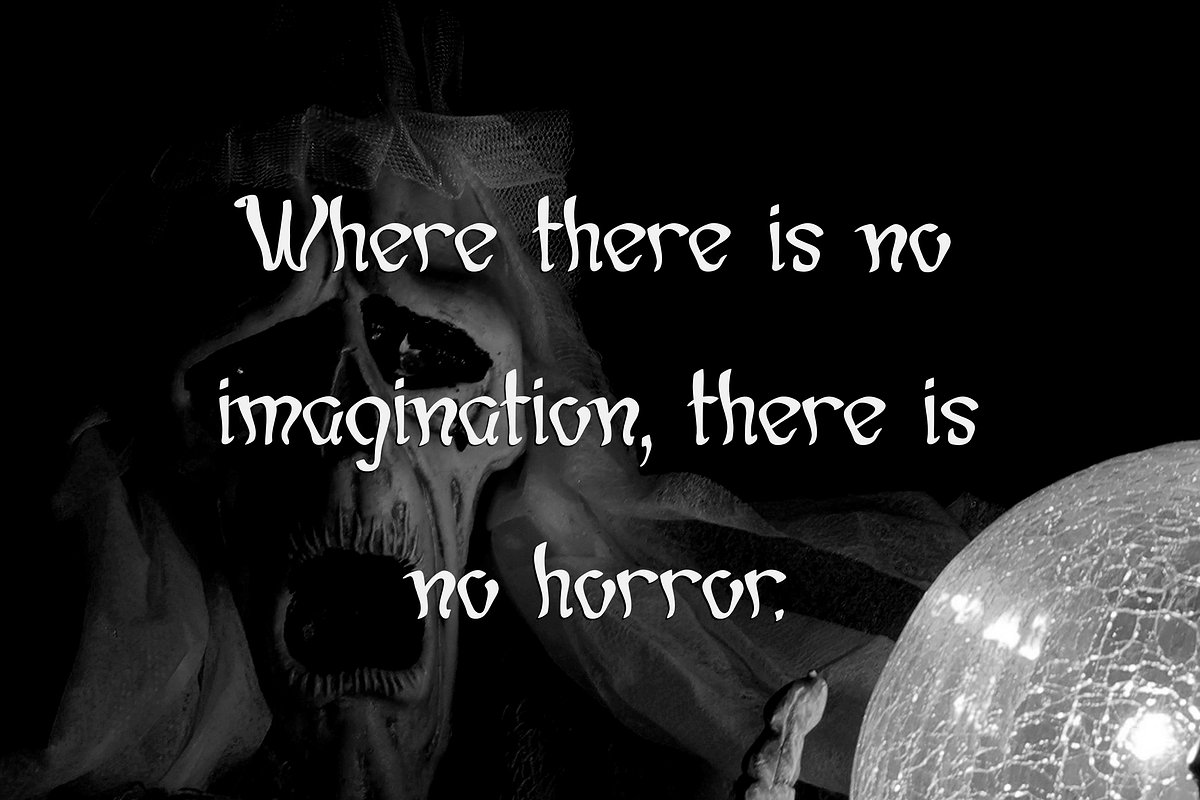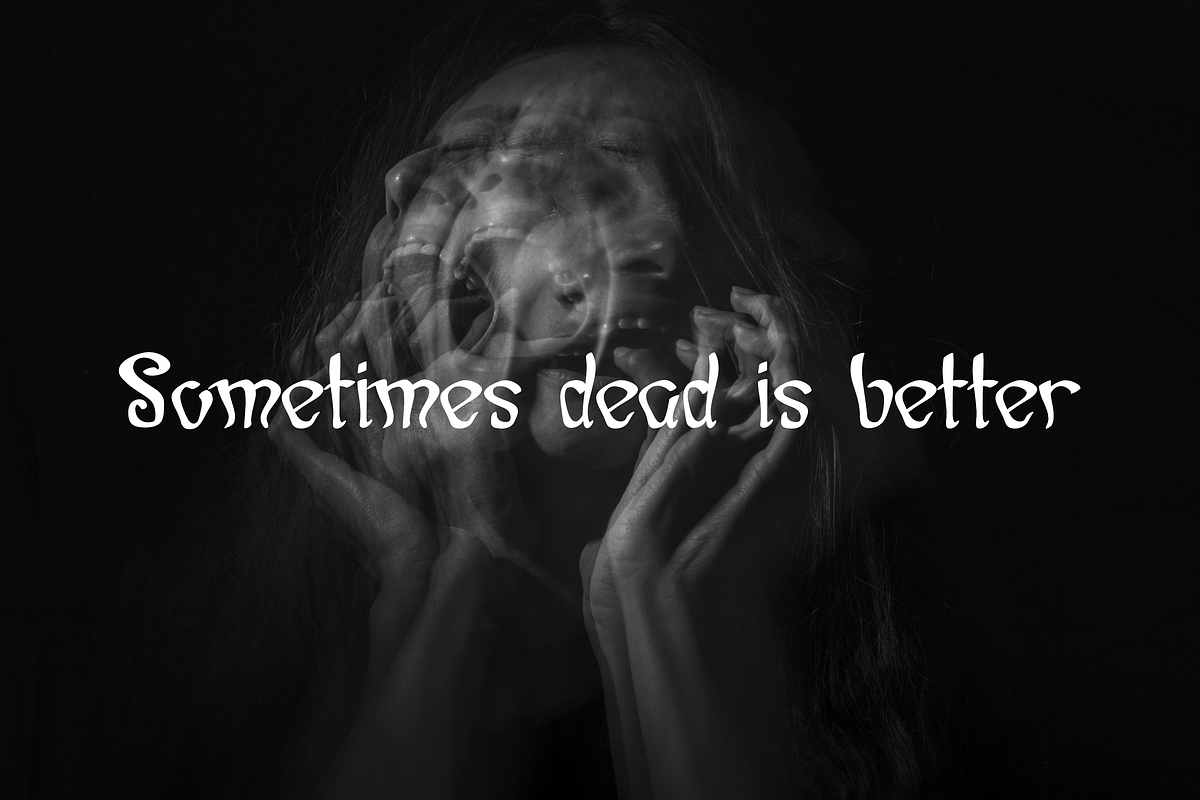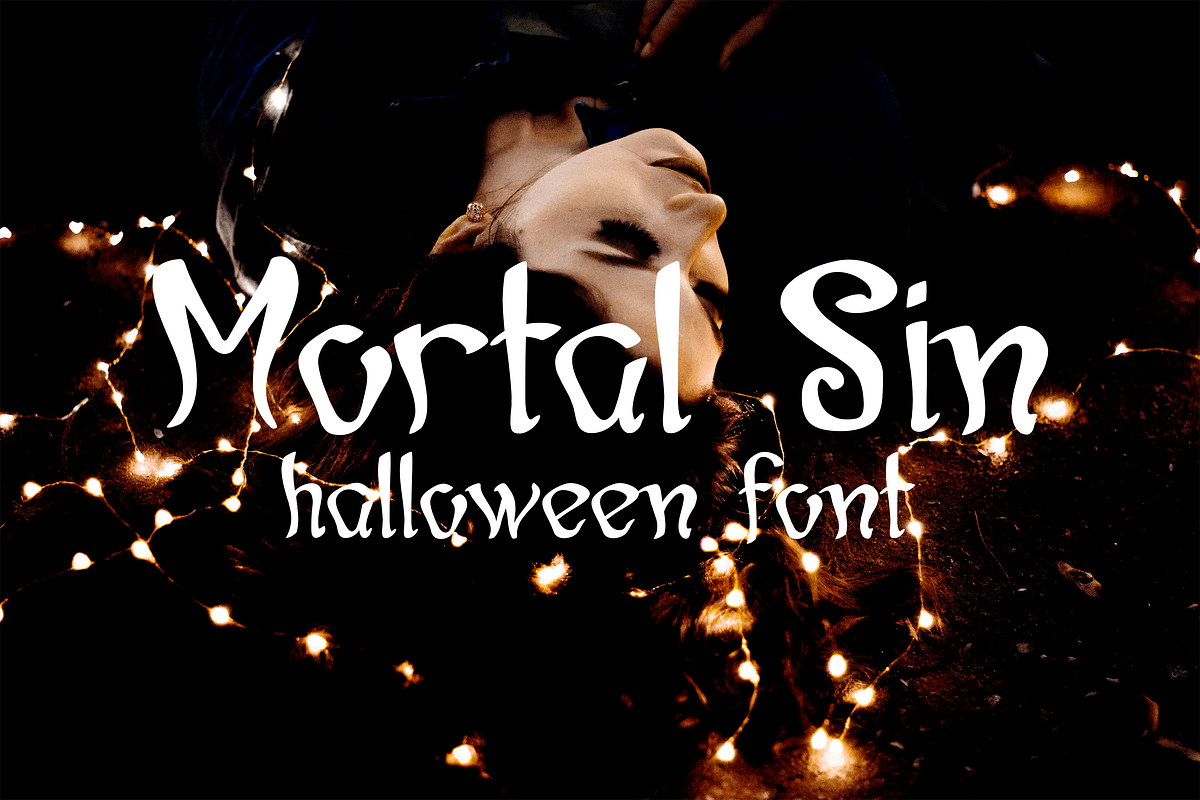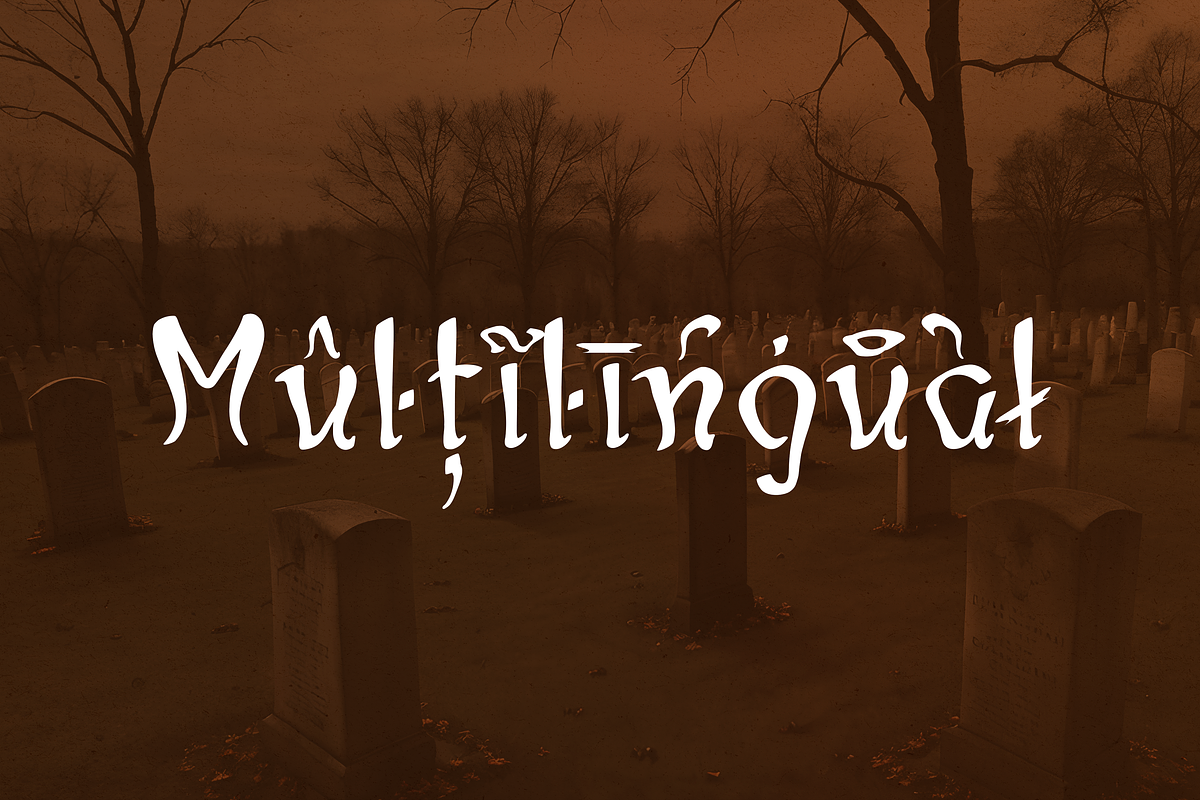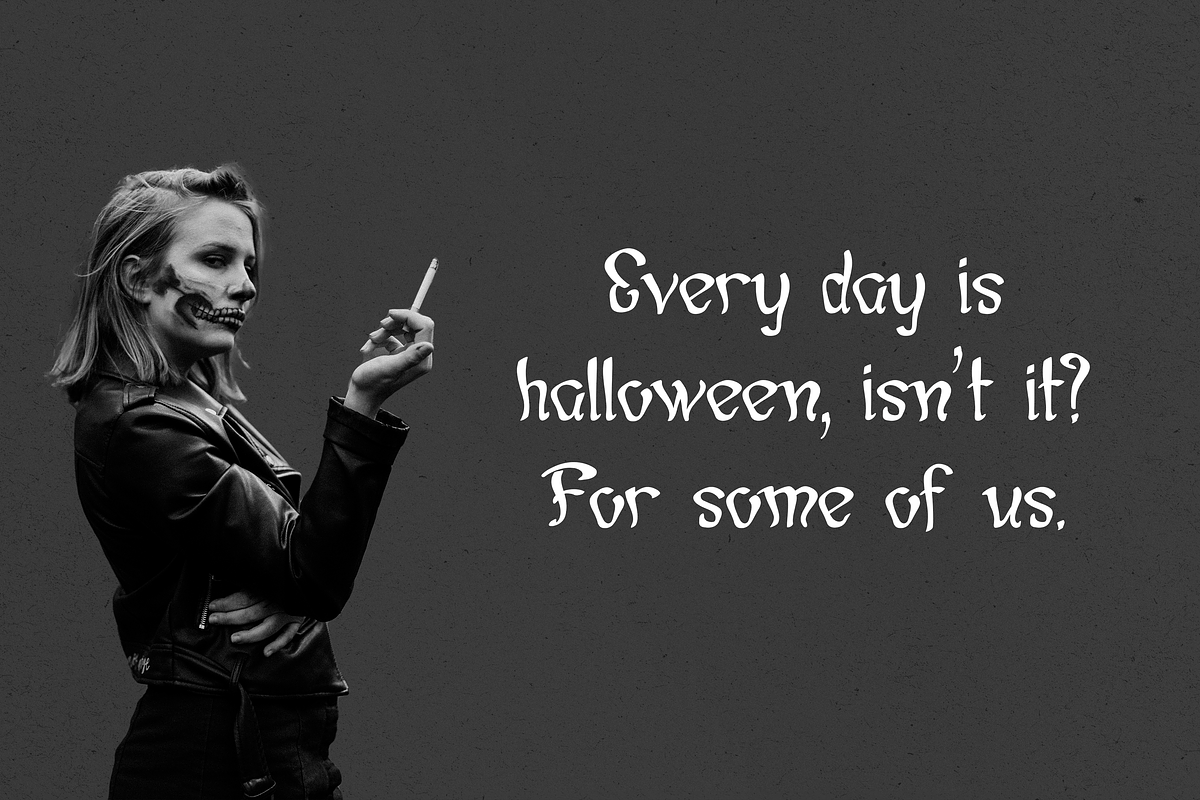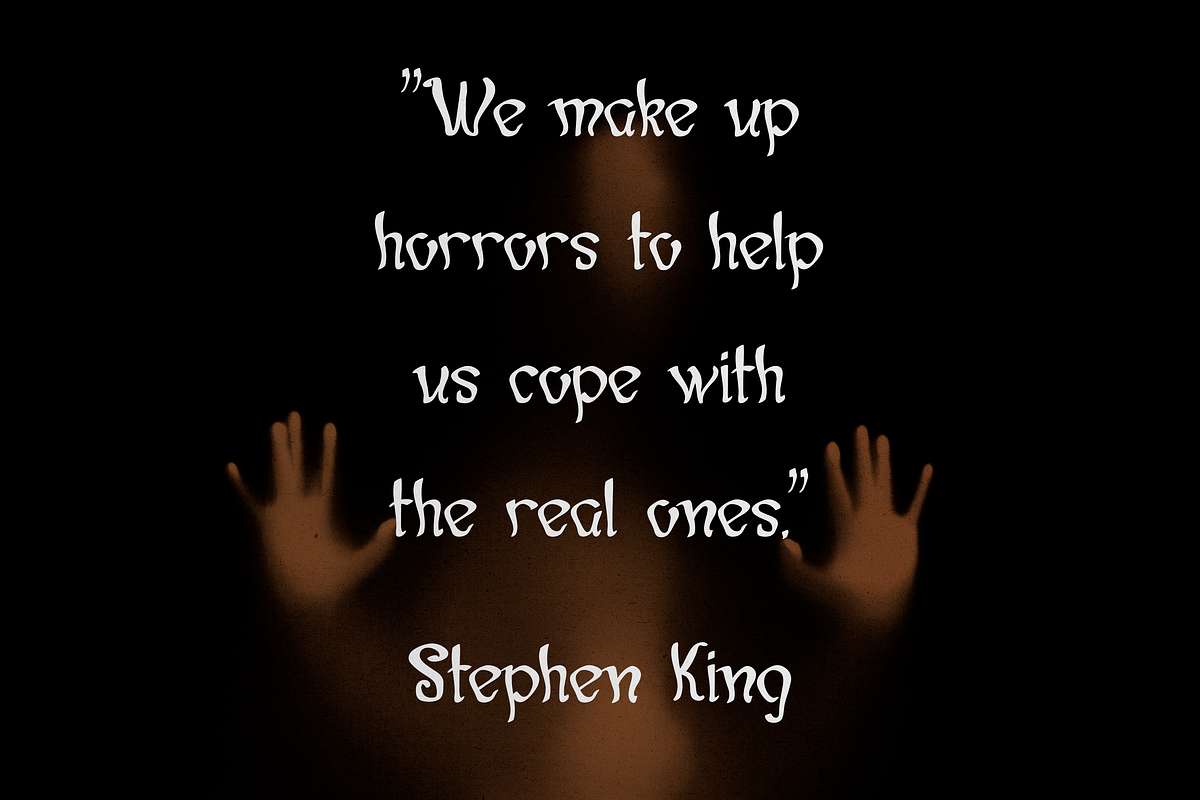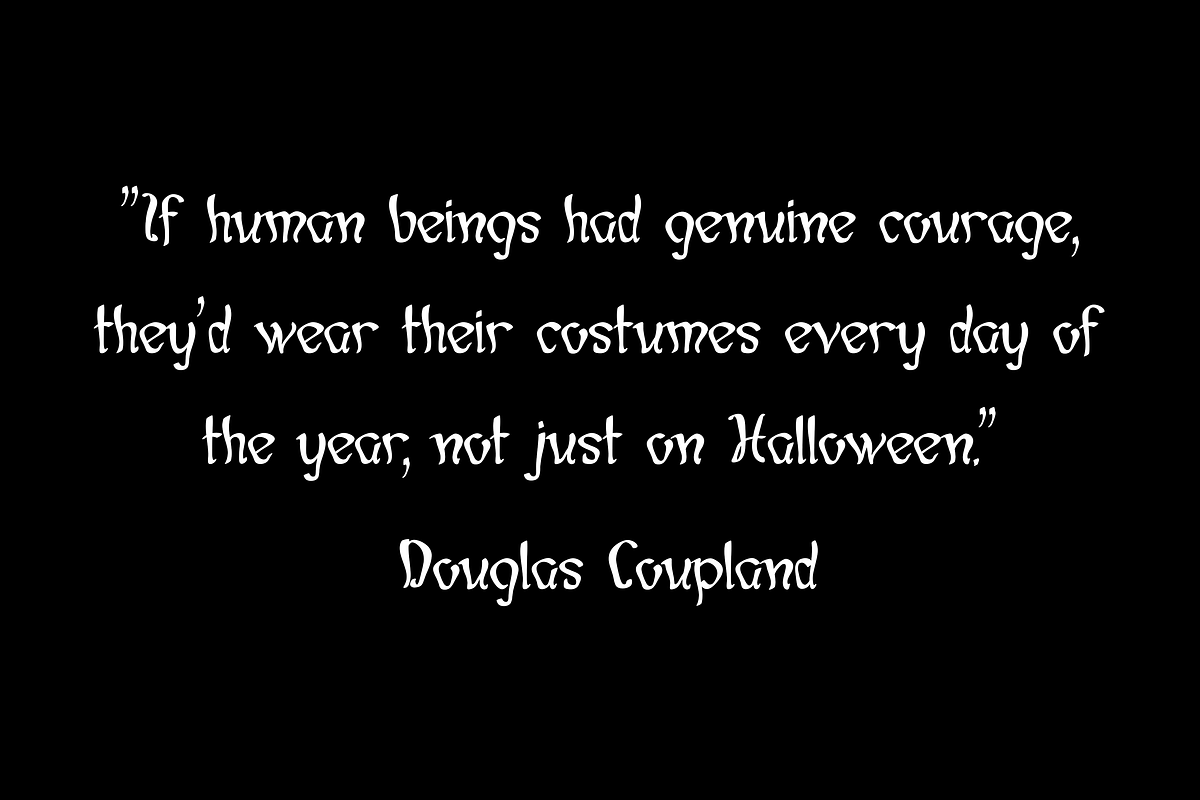
Mortal Sin | Halloween font
Unlock the dark magic of typography with Mortal Sin, the ultimate Halloween font. Embrace elegance and unleash your creativity with this spellbinding typeface that is sure to send shivers down your spine. With its multilingual support, Mortal Sin allows you to cast a sinister spell in any language. Perfect for haunted invitations, wicked posters, or enchanting designs, Mortal Sin will elevate your Halloween projects to the next level of spooky sophistication. Embrace the darkness and let Mortal Sin be your guide into the realm of mystic fonts.